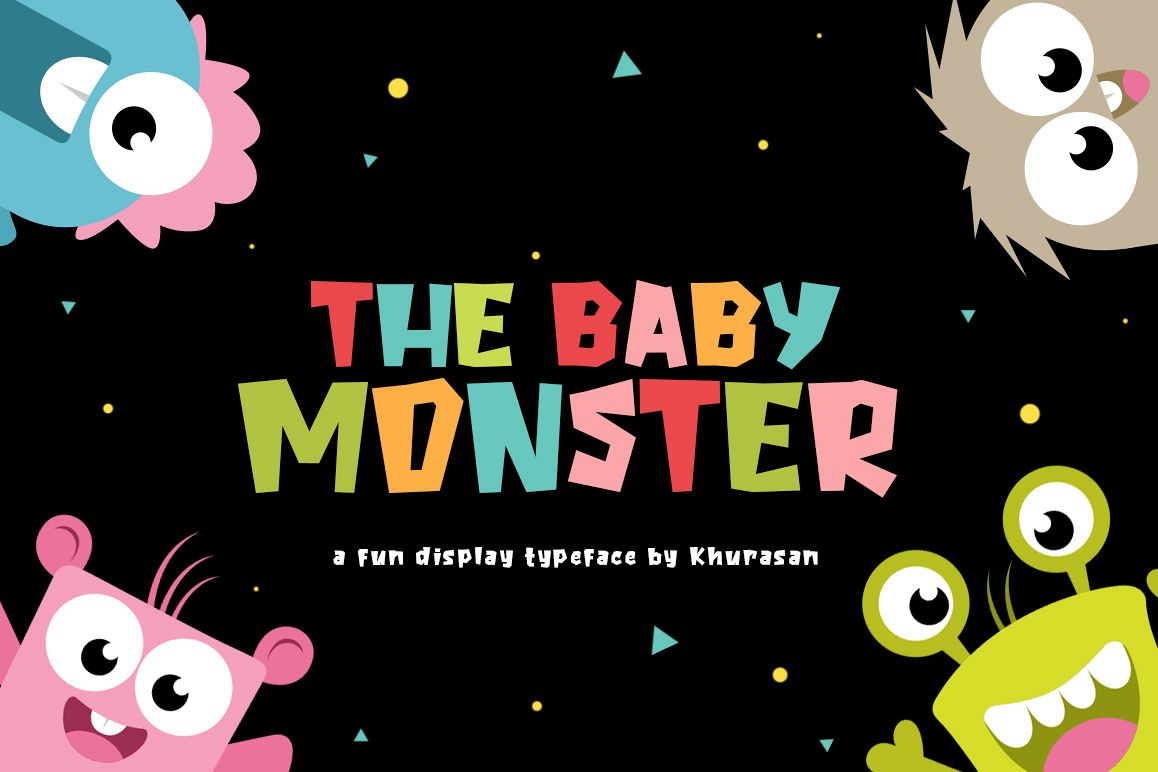
The Baby Monster
The Baby Monster Display font with halloween theme for your fun project. The Baby Monster Display font suitable for logo, branding, greeting card, branding, poster and any design that you create.